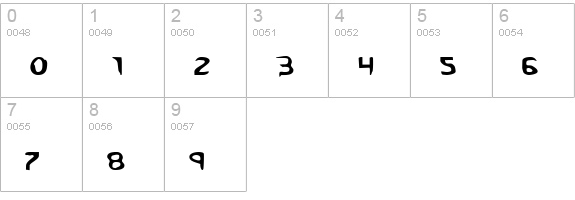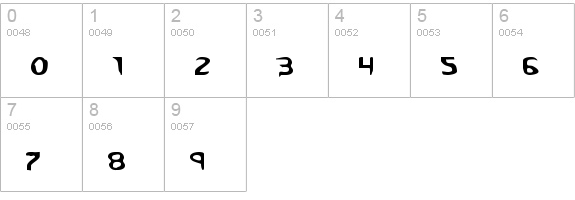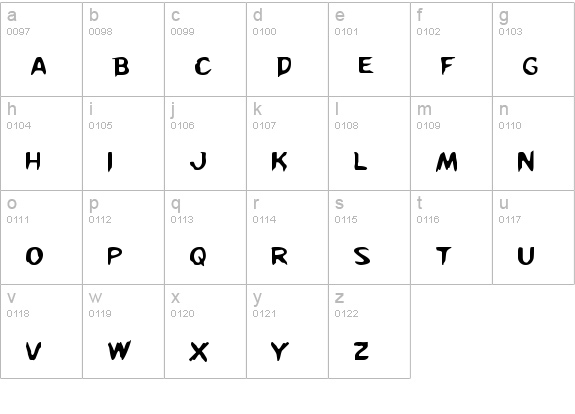
Kreeture Font Details
Introducing Kreeture font, a whimsical and playful typeface perfect for adding a touch of charm to your designs. With its quirky and unique character shapes, Kreeture font is sure to stand out and make a statement. Whether you're working on a children's book, greeting cards, or any other creative project, this font will bring a fun and lively vibe to your work. What's even better is that Kreeture font is available for free download at FontsMarket.com. So go ahead and give your designs a touch of personality with this delightful font. Let your creativity soar with Kreeture font!